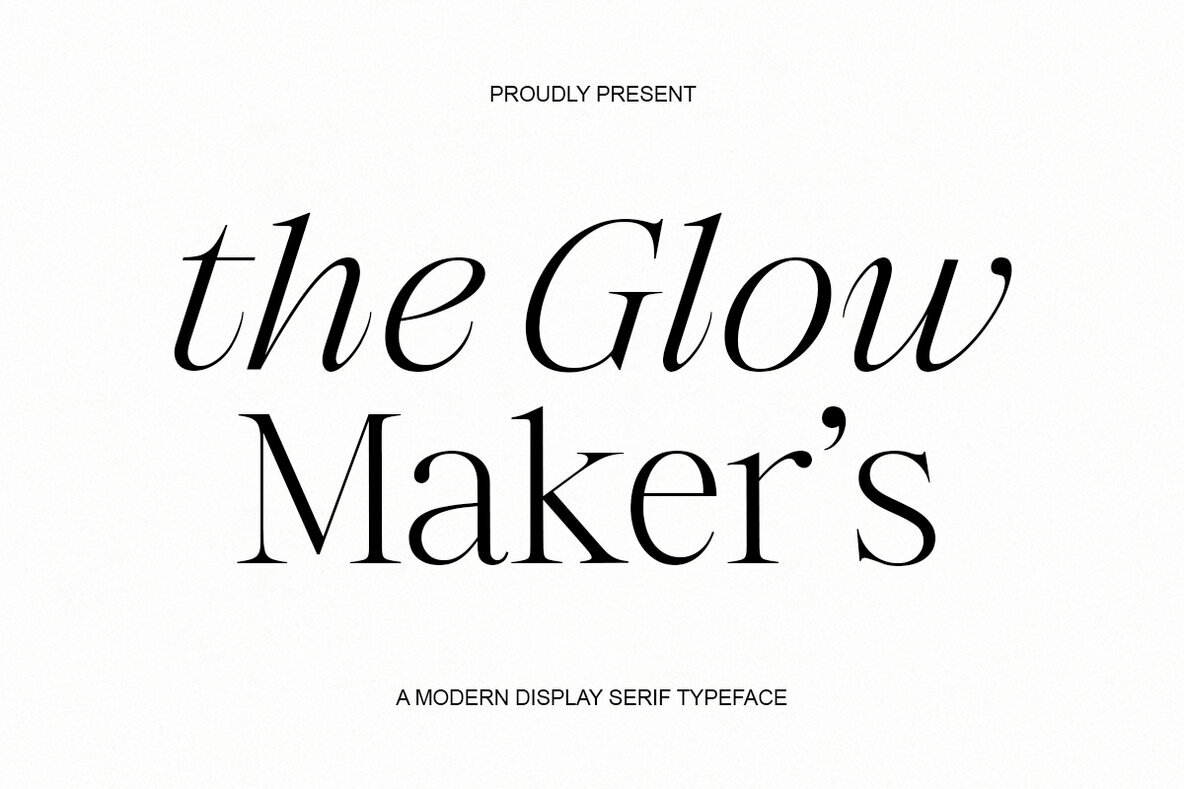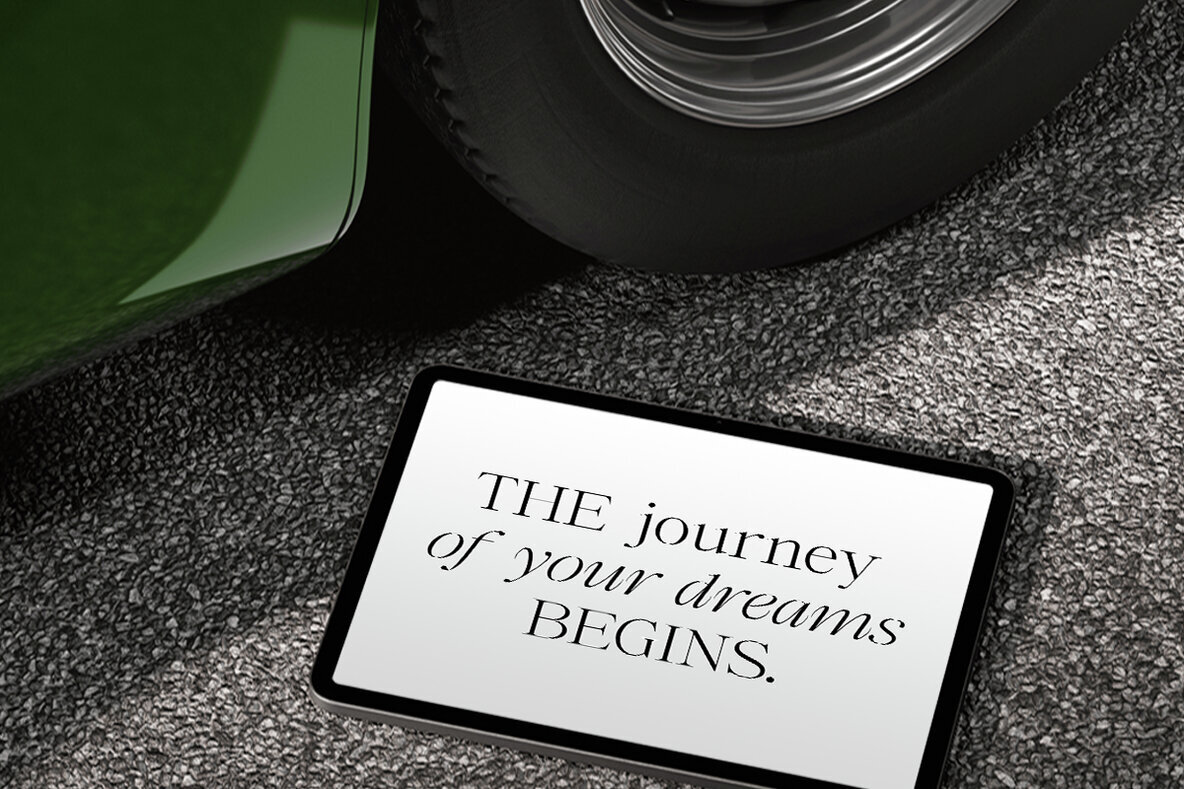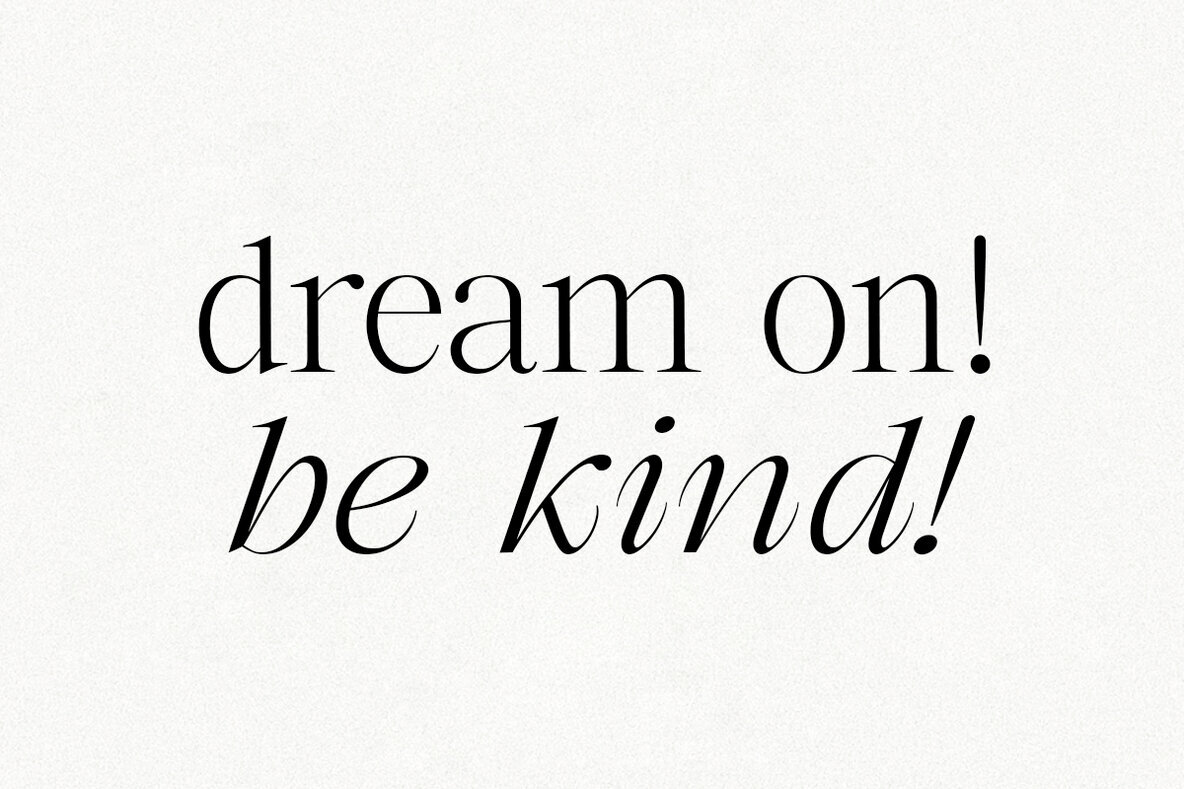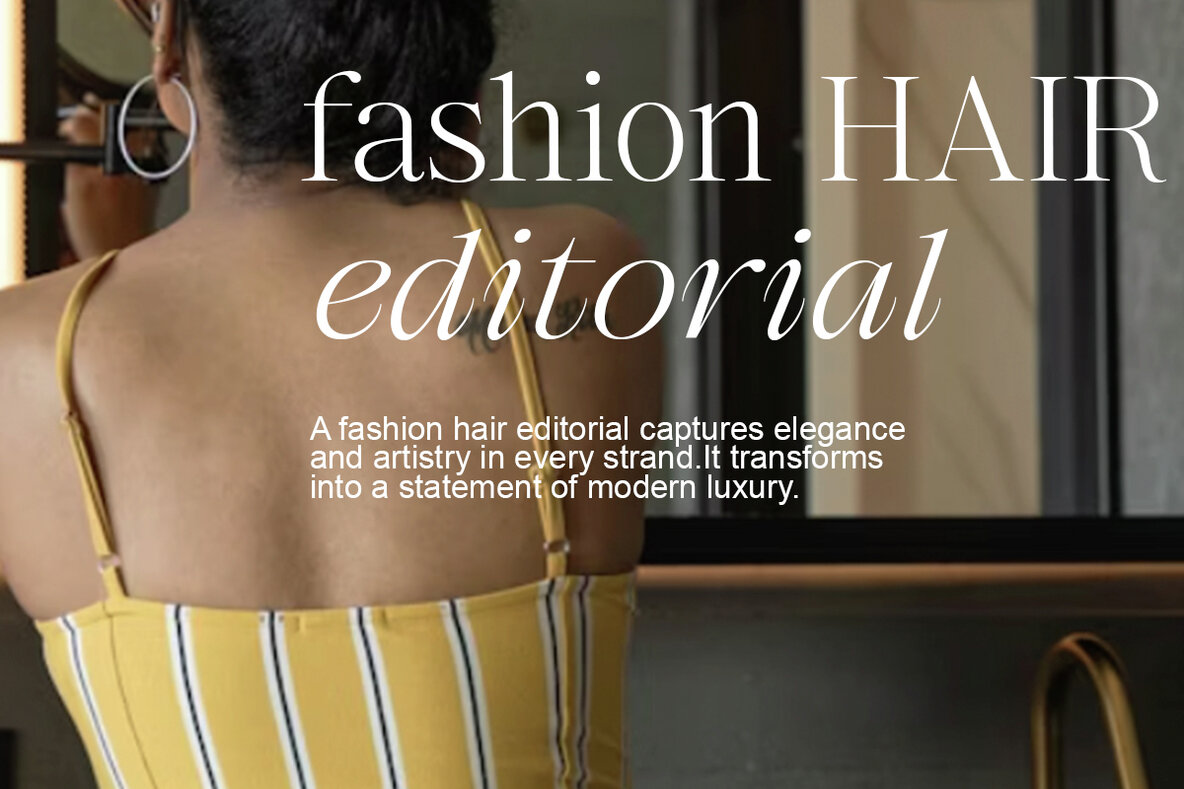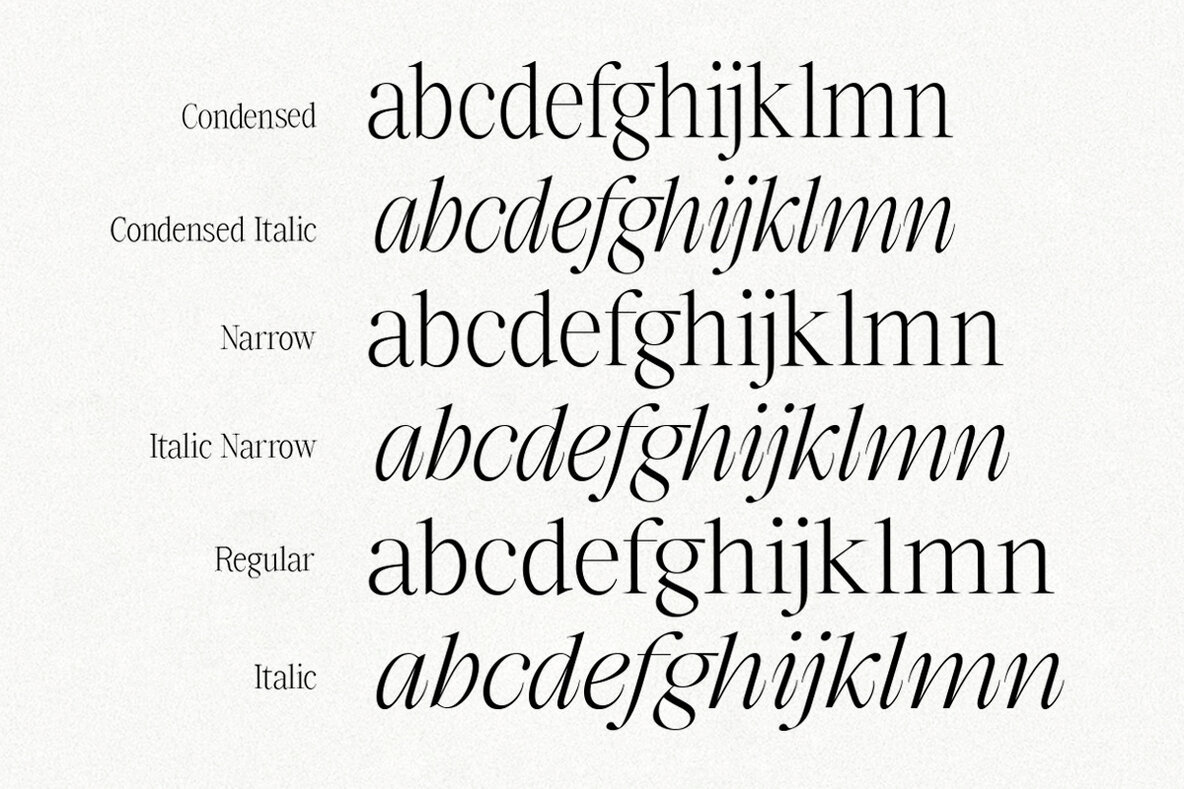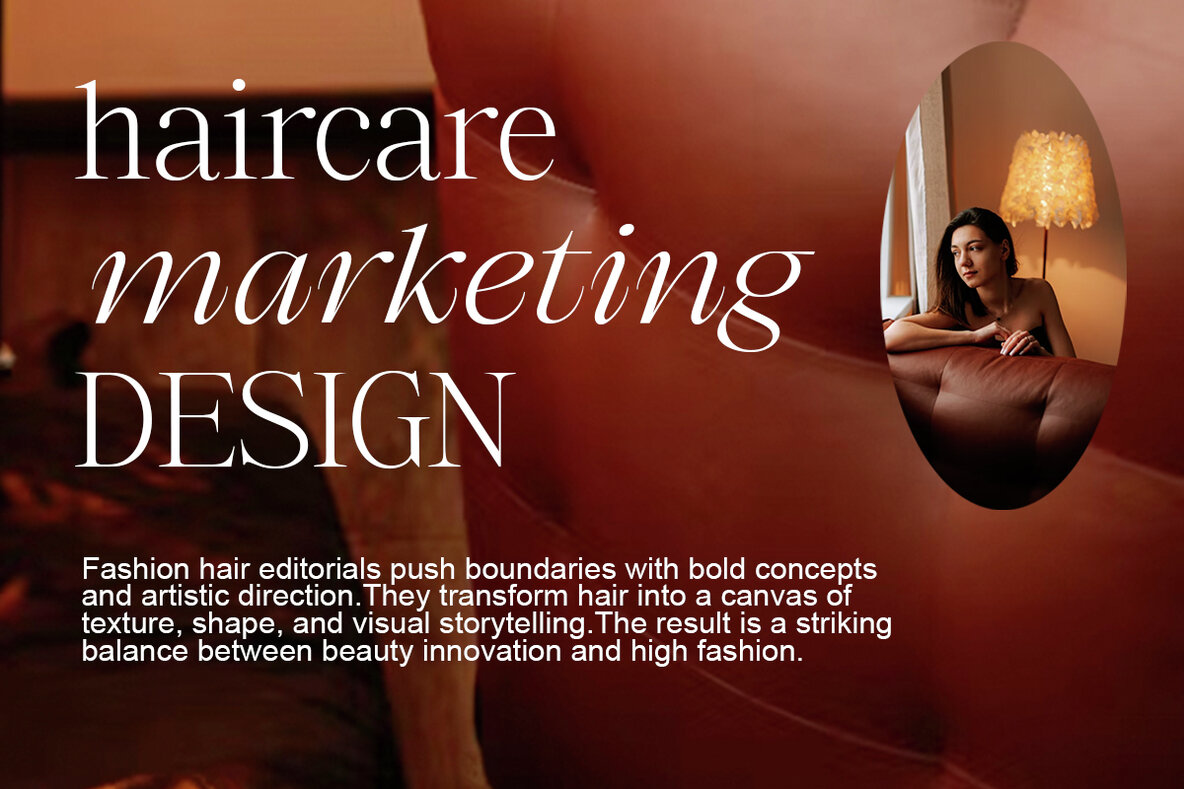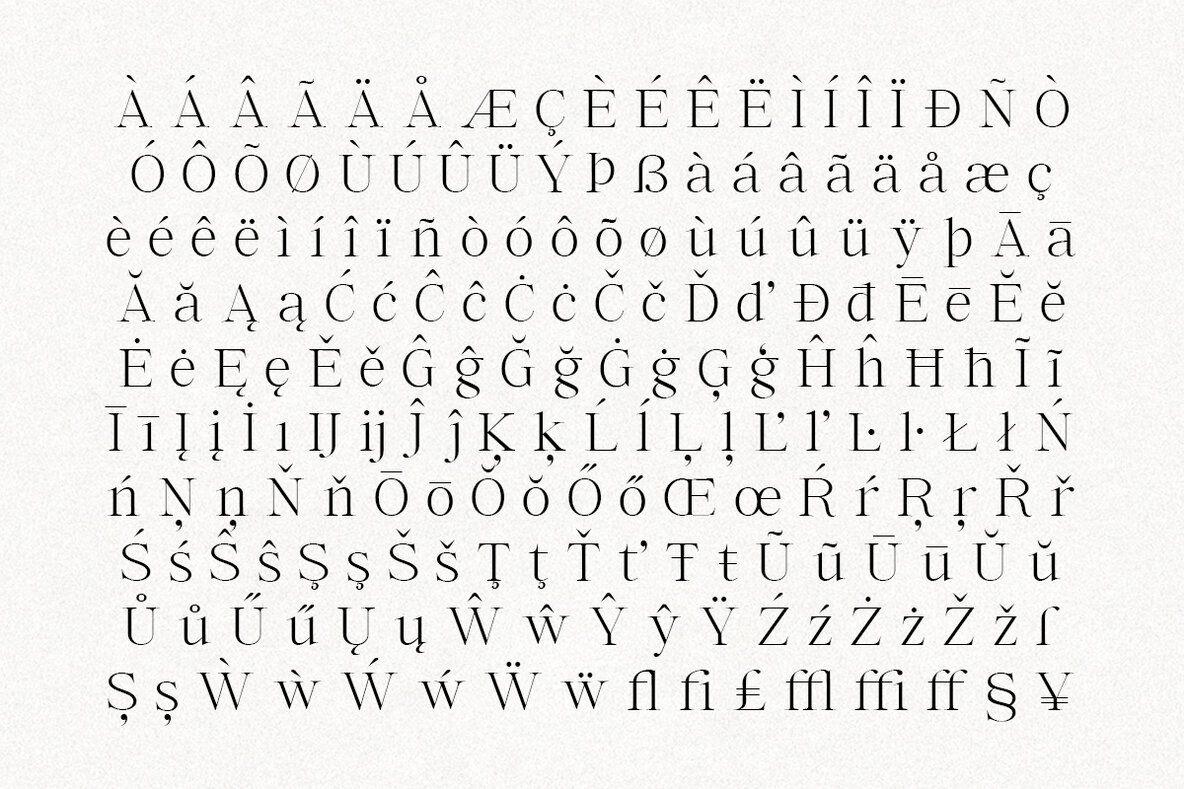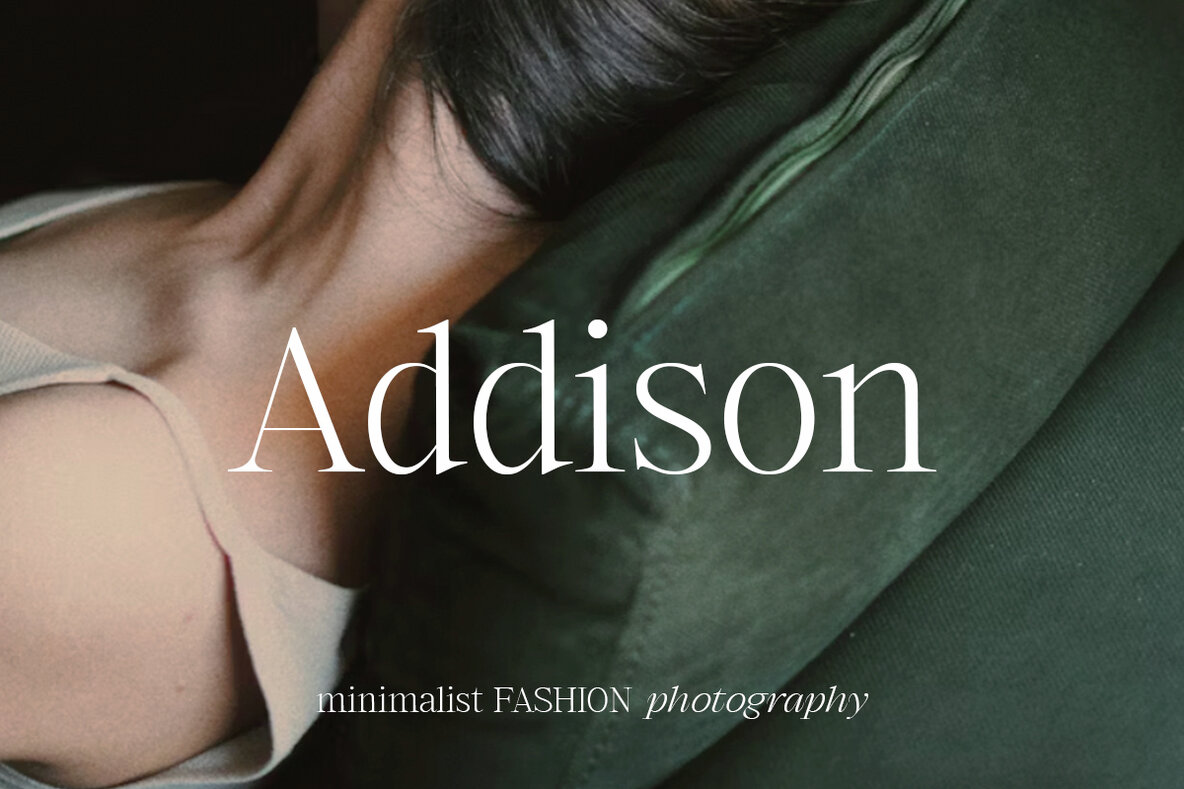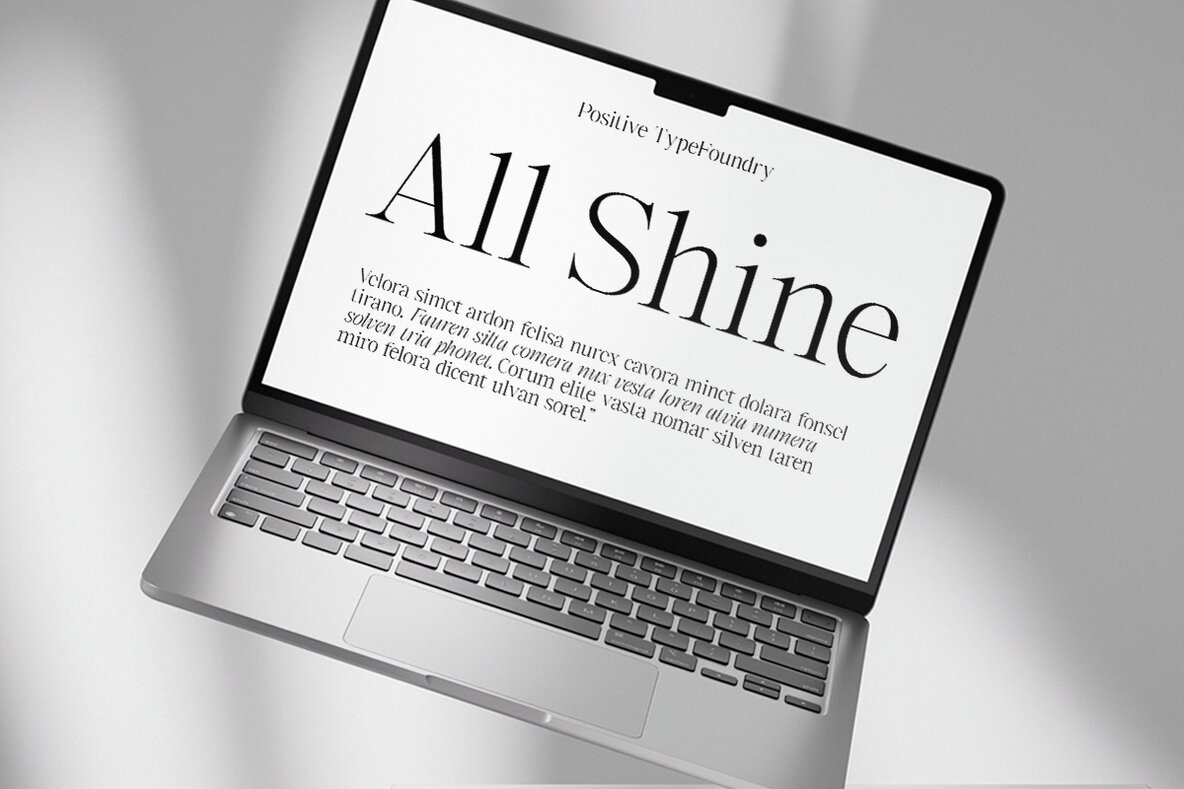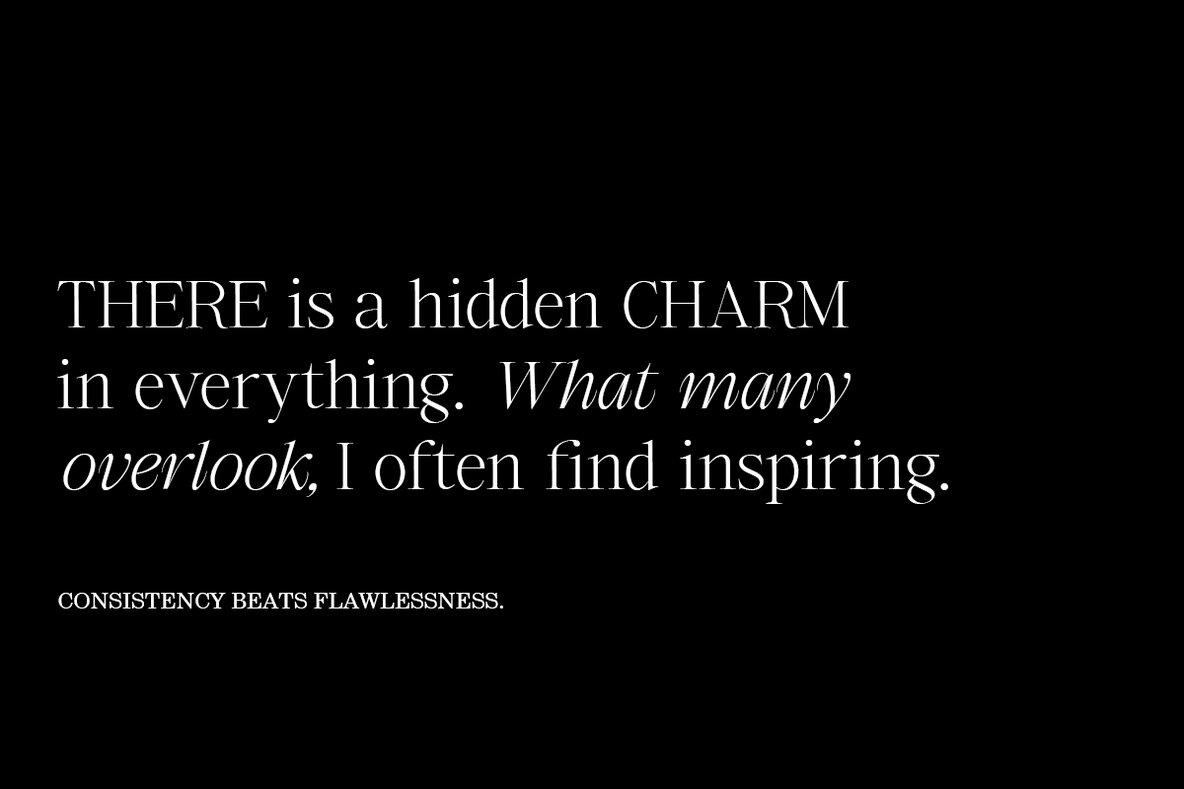
The Glow Makers Font
The Glow Makers is a sophisticated display serif typeface that effortlessly combines timeless elegance with a modern edge. Its refined contrast and graceful curves bring a luxurious touch to any design project, making it ideal for those seeking sophistication and style. With its striking presence, this typeface elevates branding, fashion, magazines, logos, packaging, and more.The Glow Makers Typeface